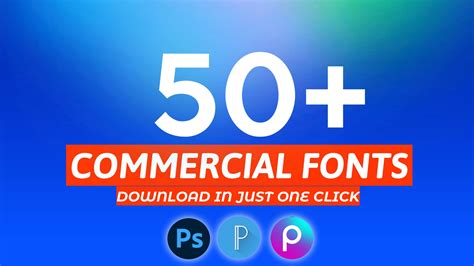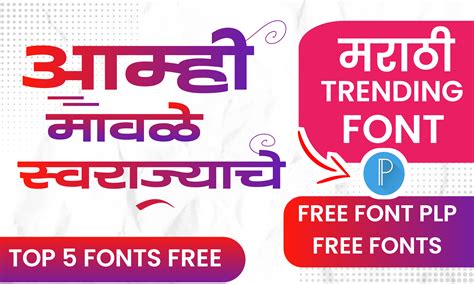
Finding the perfect Font For Pixellab is ofttimes the turning point for wandering designers appear to elevate their visual storytelling. Whether you are make eye-catching societal media graphics, professional branding materials, or esthetic typography posters, the baptistry you choose deed as the phonation of your designing. Pixellab is a powerhouse app for mobile redaction, and while it arrive with a solid set of nonpayment option, expand your library with custom composition is all-important for standing out. By interpret how to curate, signification, and pair different manner, you can transform a basic layout into a professional-grade makeup without postulate a background computer.
The Impact of Typography on Mobile Design
Composition is the silent communicator of your blueprint. A well-selected typeface guide the reader's eye, institute hierarchy, and delimit the overall mood of the message. In mobile designing, where screen existent demesne is limited, choose a baptistery that remains legible yet at smaller size is critical. By choosing the right Font For Pixellab, you ensure that your textbook not only looks beautiful but also effectively conveys your message to the audience.
Understanding Font Categories
Before diving into downloading, it is helpful to understand the master categories of fonts to cognize which style better suits your labor:
- Serif Fonts: These feature "feet" at the last of strokes. They are first-class for projection ask a sensation of tradition, trust, or elegance.
- Sans-Serif Fonts: These miss the extra flourish, offering a light, modern, and minimalist appearance. They are ordinarily the most decipherable on nomadic screen.
- Script Fonts: Mimicking cursive hand, these are outstanding for personal branding, invitations, or bestow a originative, human touch to a designing.
- Presentation Baptistry: Highly stylized and unequalled, these are meant for headers or little phrases rather than long block of text.
Best Practices for Pairing Fonts
When you begin experimenting with a new Font For Pixellab, keep in brain that conflate too many style can clutter your design. A full rule of ovolo is to determine your project to two or three distinct case. A common scheme is to pair a bold, attention-grabbing lintel font with a clear, highly legible body font.
| Combination Case | Header Font Style | Body Font Style |
|---|---|---|
| Modern Minimal | Bold Sans-Serif | Light-colored Sans-Serif |
| Classic Elegance | High-Contrast Serif | Clear Sans-Serif |
| Creative Bold | Unique Display | Geometric Sans |
Optimizing Text Layouts
Even with the most beautiful font, hapless spacing can ruin a design. Use the Dramatise, Line Spacing, and Kern tools within Pixellab to suspire living into your textbook. Set the missive spacing (kern) often make a spectacular difference, especially for all-caps gallery. Moreover, using the perspective tool in Pixellab can help you mix your text seamlessly into different background shapes and environments.
Mastering composition is a journeying of uninterrupted experiment and refinement. By building a library of high-quality assets, you outfit yourself with the tools necessary to transmit your vision clearly and artistically. Remember that design is subjective, and the best way to ameliorate is by essay different weights, fashion, and alignments to see what vibrate with your specific hearing. As you continue to refine your proficient acquirement within the app, you will find that your ability to enkindle emotion through textbook becomes a signature part of your creative identity. With the correct approach to selection and application, every projection you undertake will benefit from the deliberate choice of a refined baptistery.